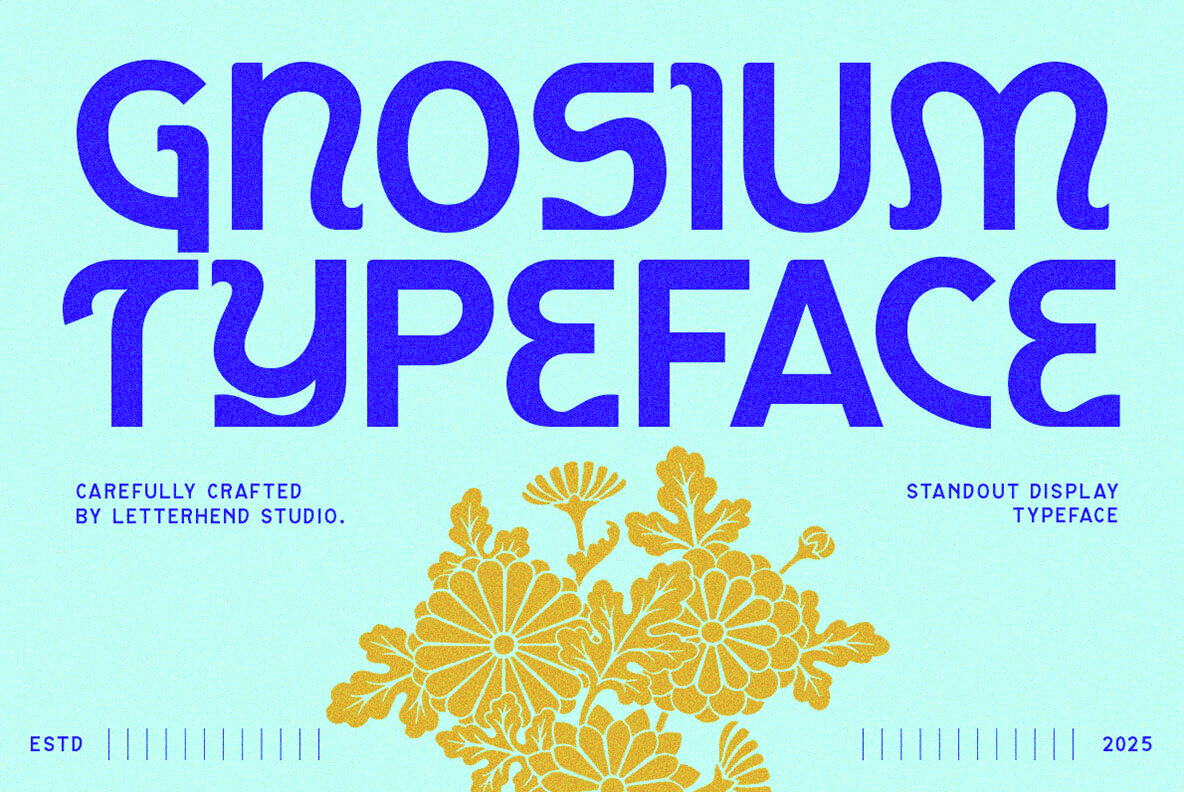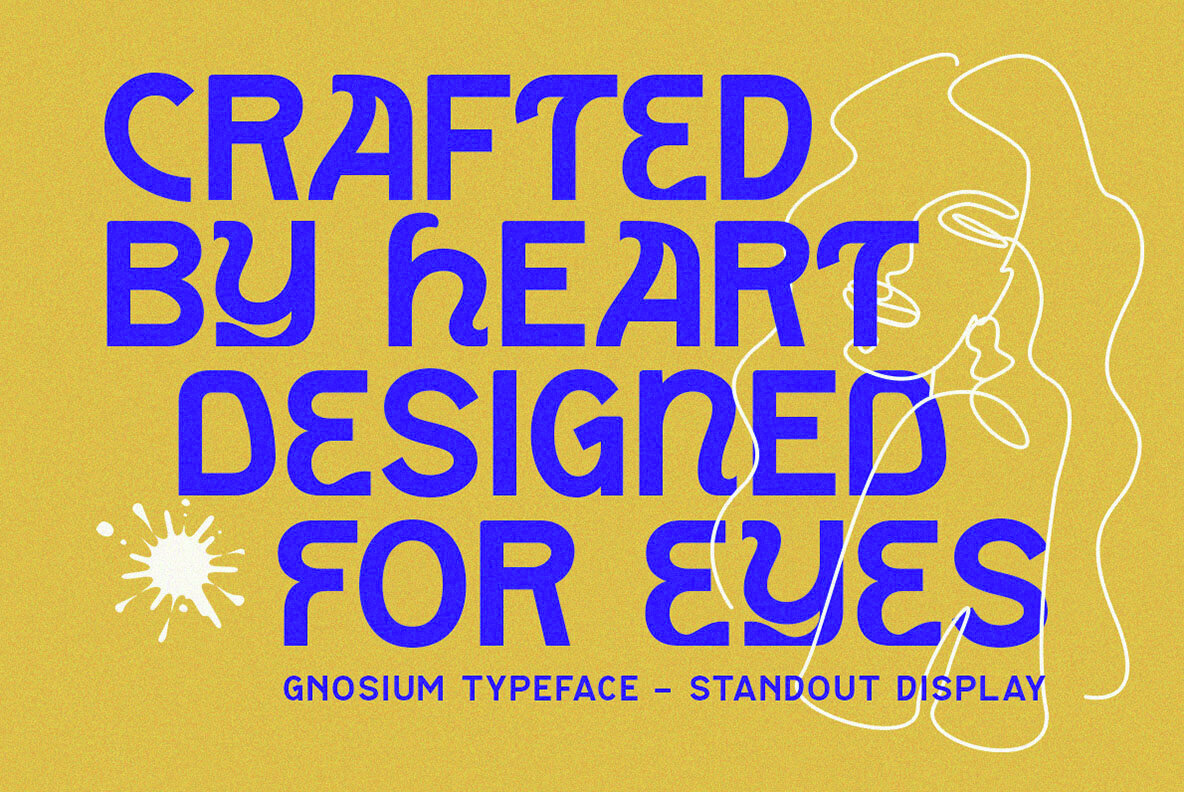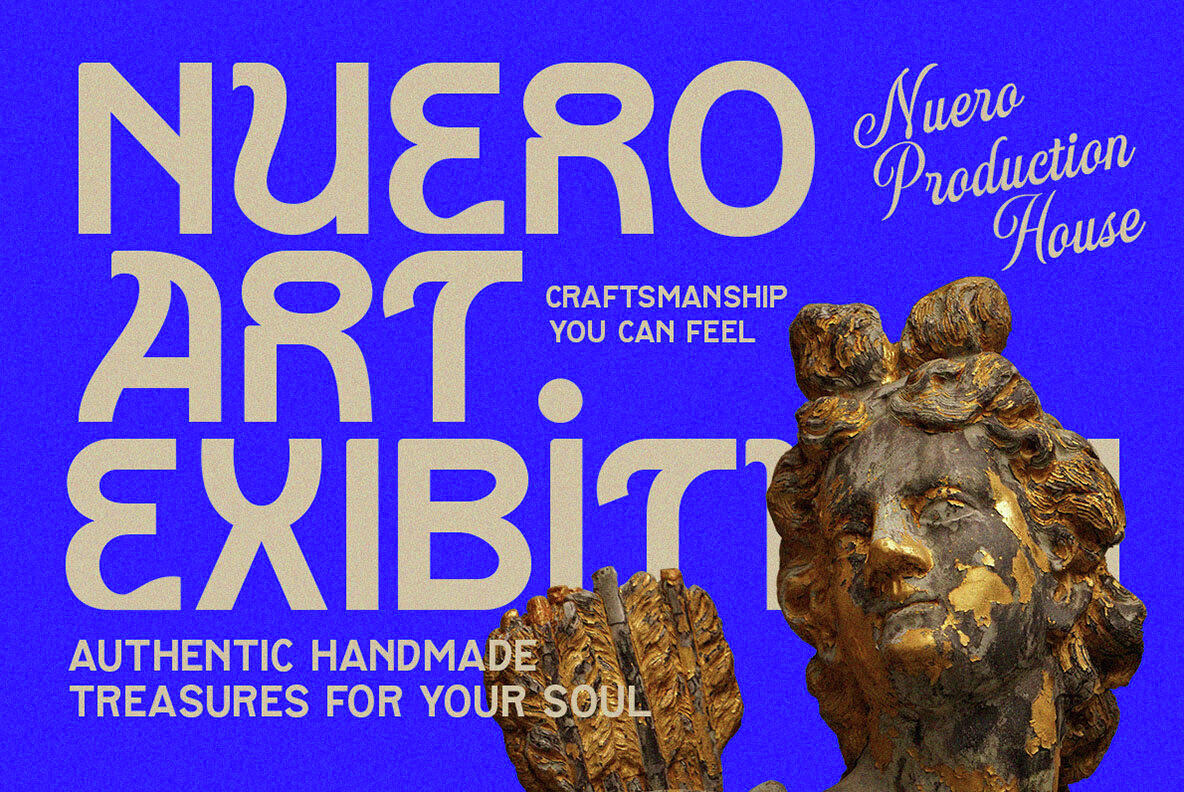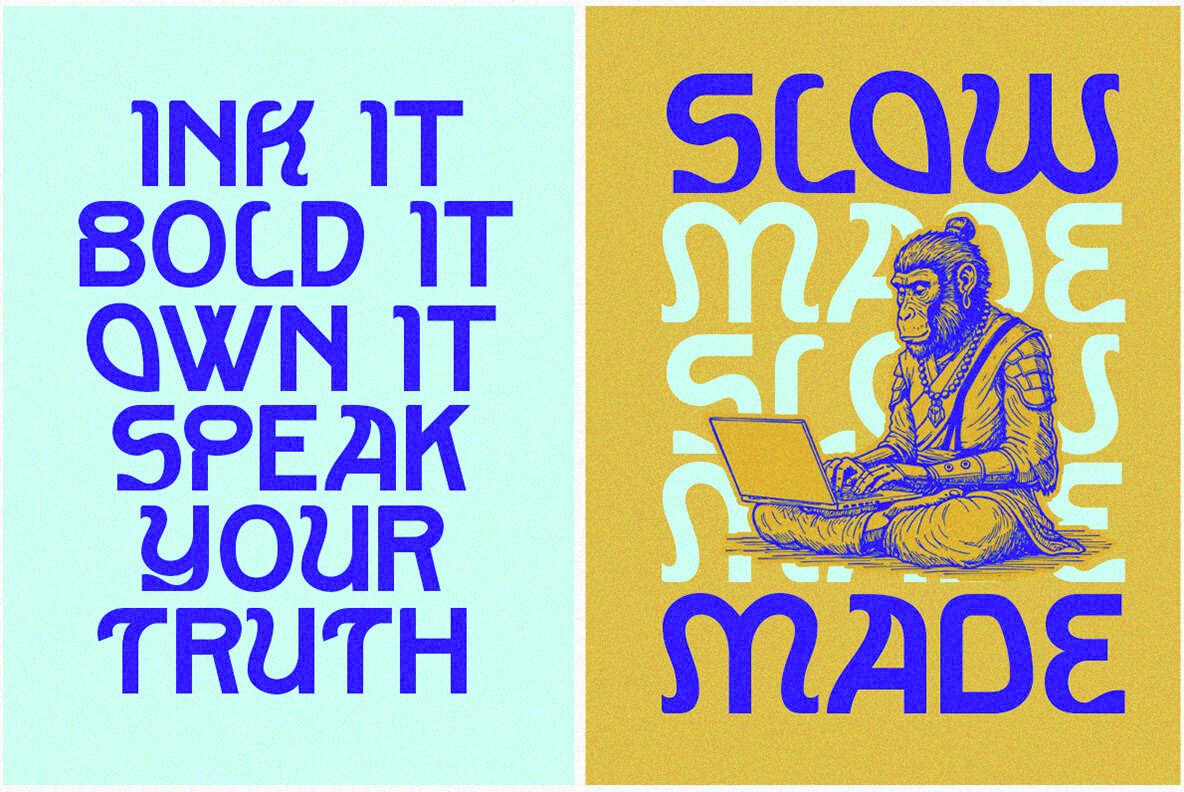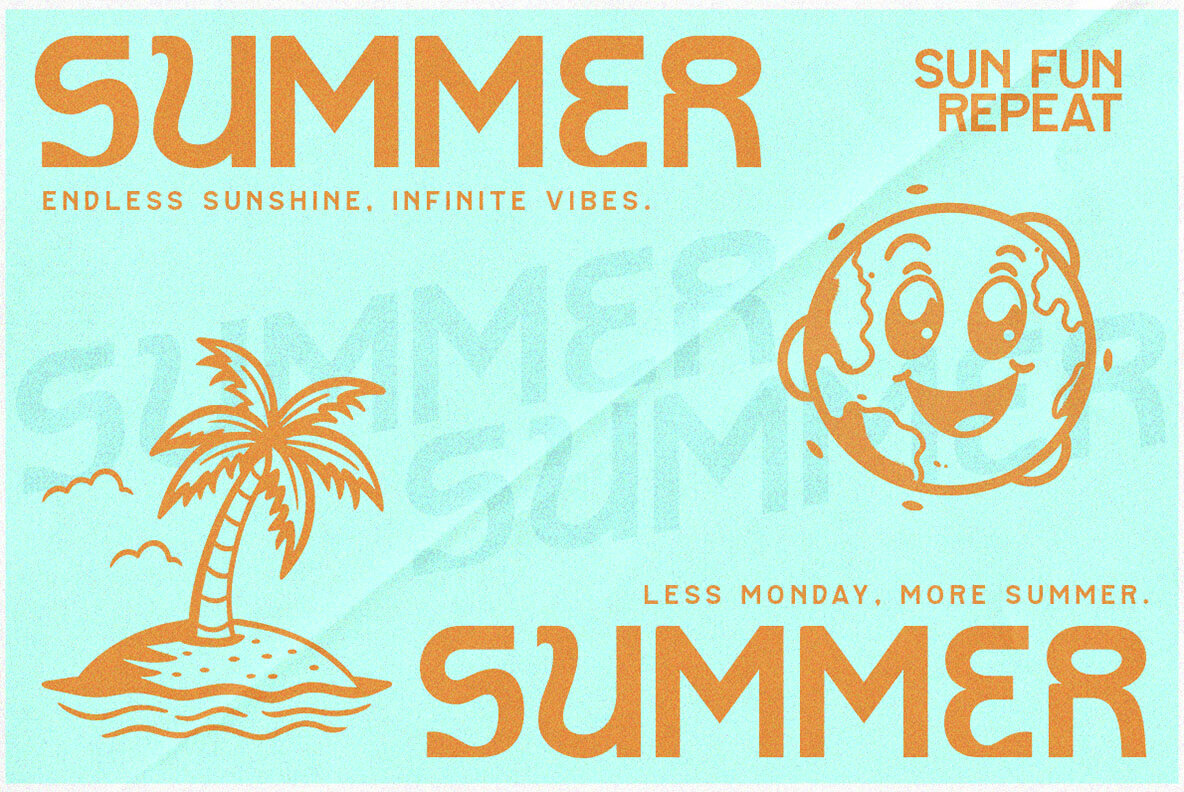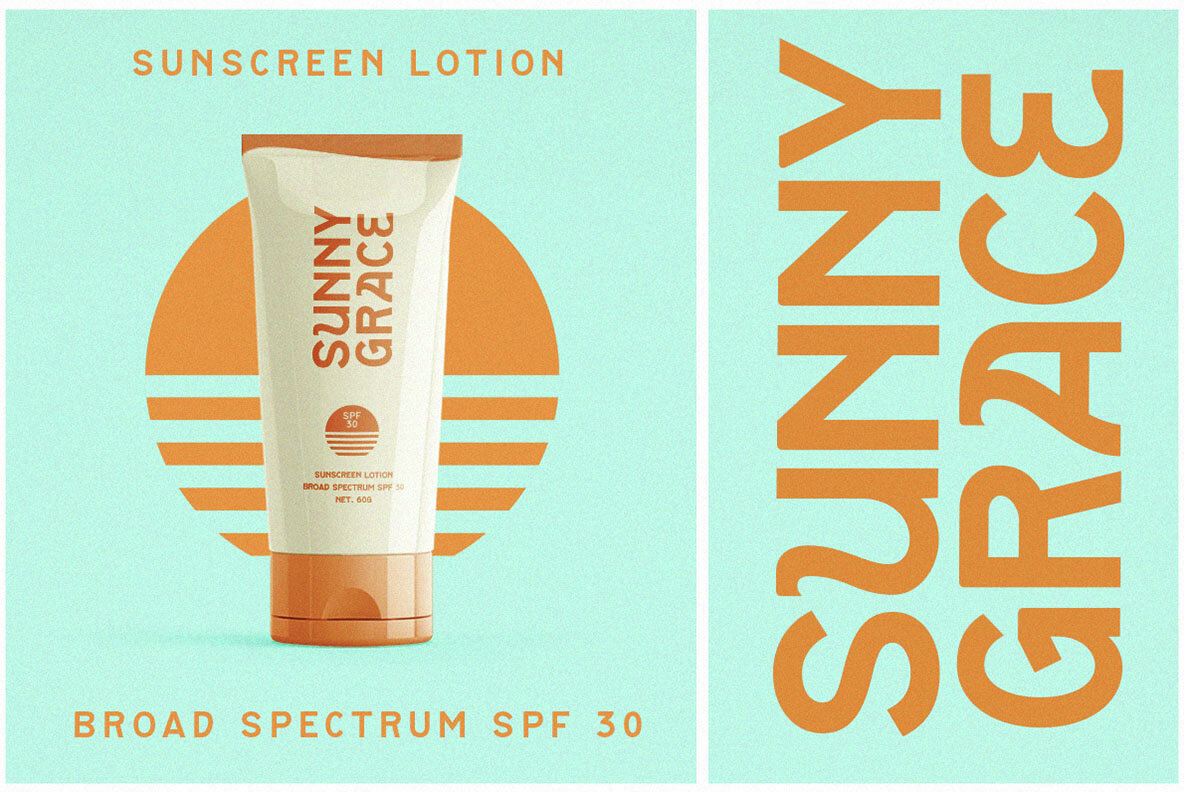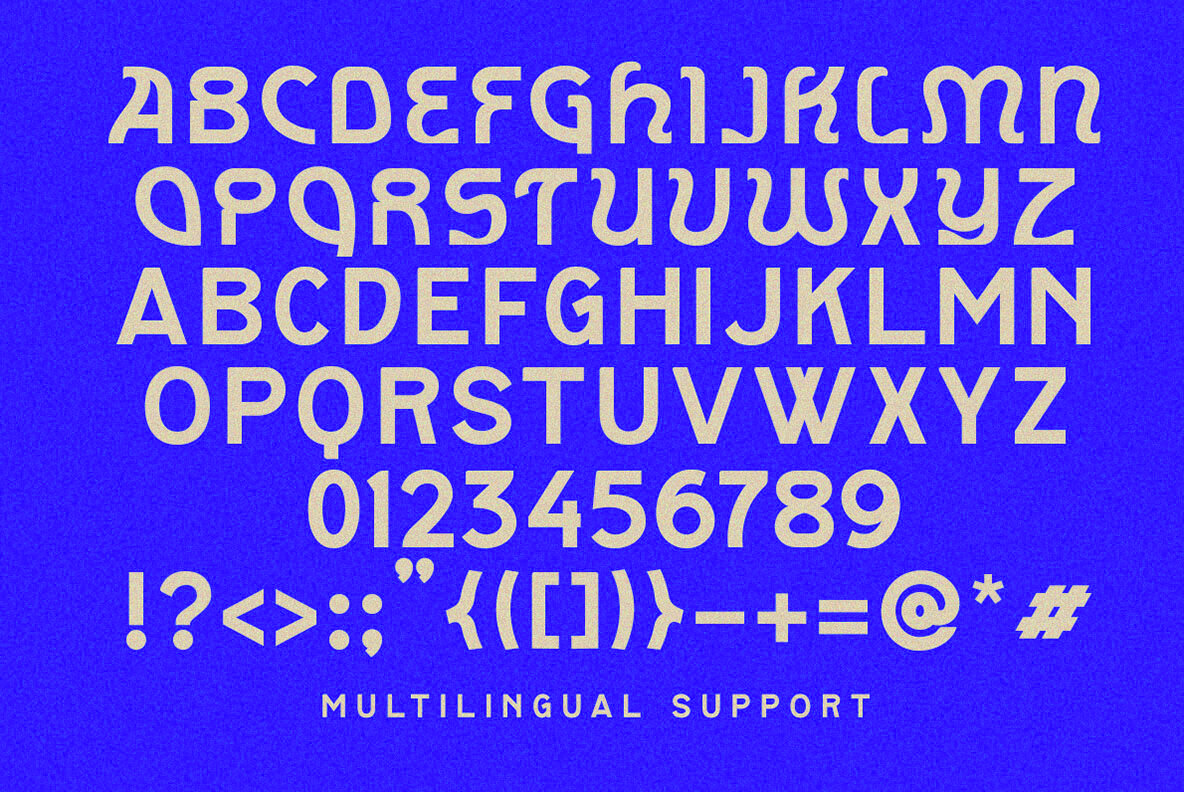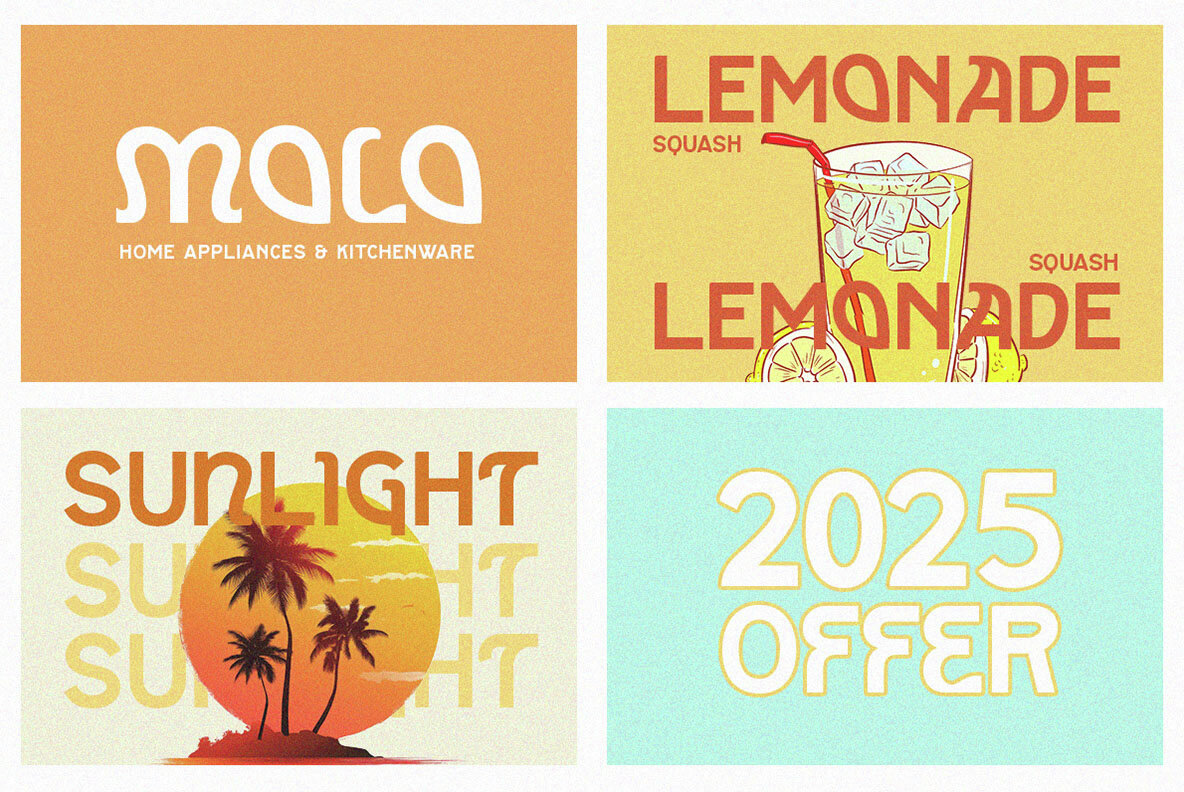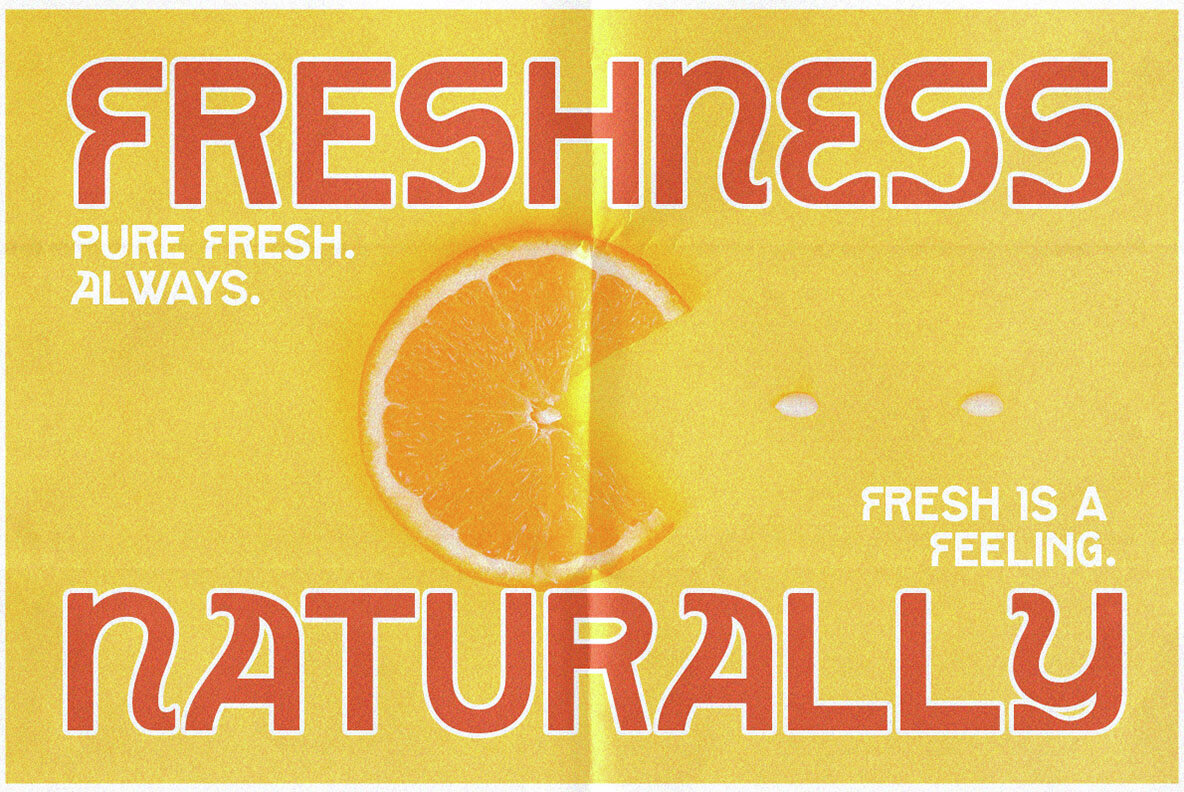
Gnosium Font
Gnosium Regular
Gnosium Typeface is a bold and artistic display font designed to make a striking impact. With its futuristic curves, geometric cuts, and playful letterforms, this typeface is perfect for modern branding, posters, editorial headlines, and creative visual projects. It radiates a retro-futuristic vibe while maintaining strong legibility and a unique character in every glyph. Features: We highly recommend using a program that supports OpenType features and Glyphs panels like many of Adobe apps and Corel Draw, so you can see and access all Glyph variations.